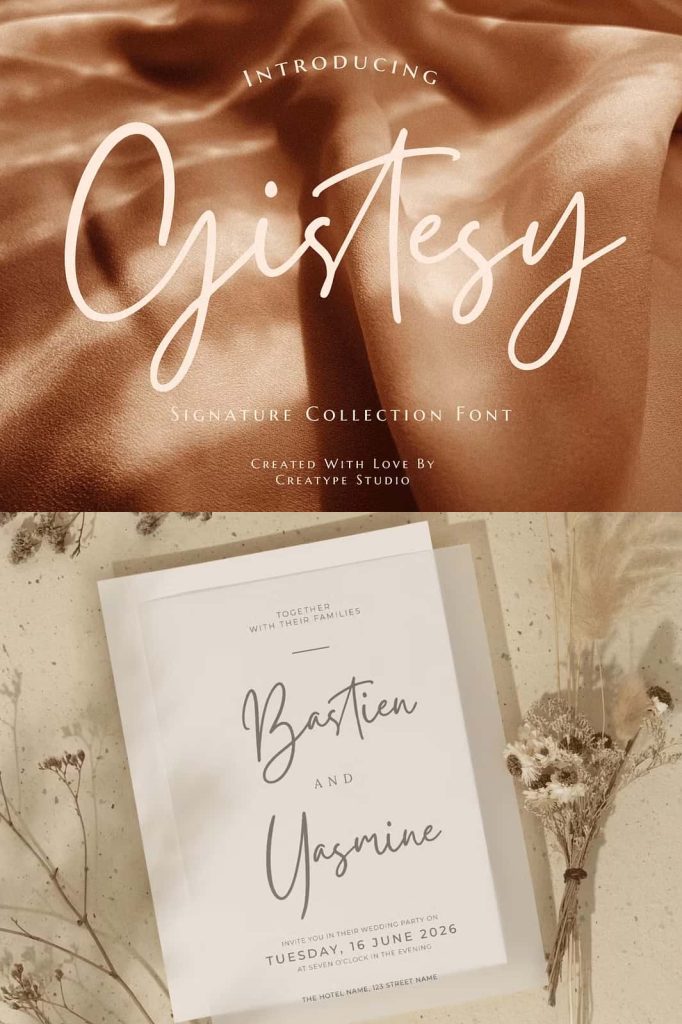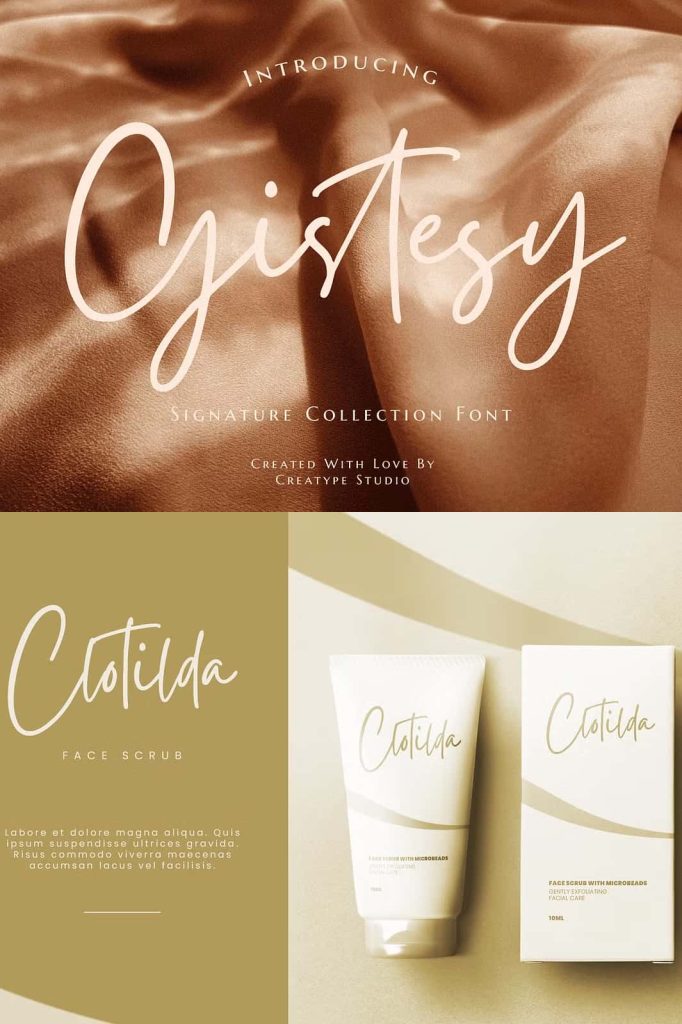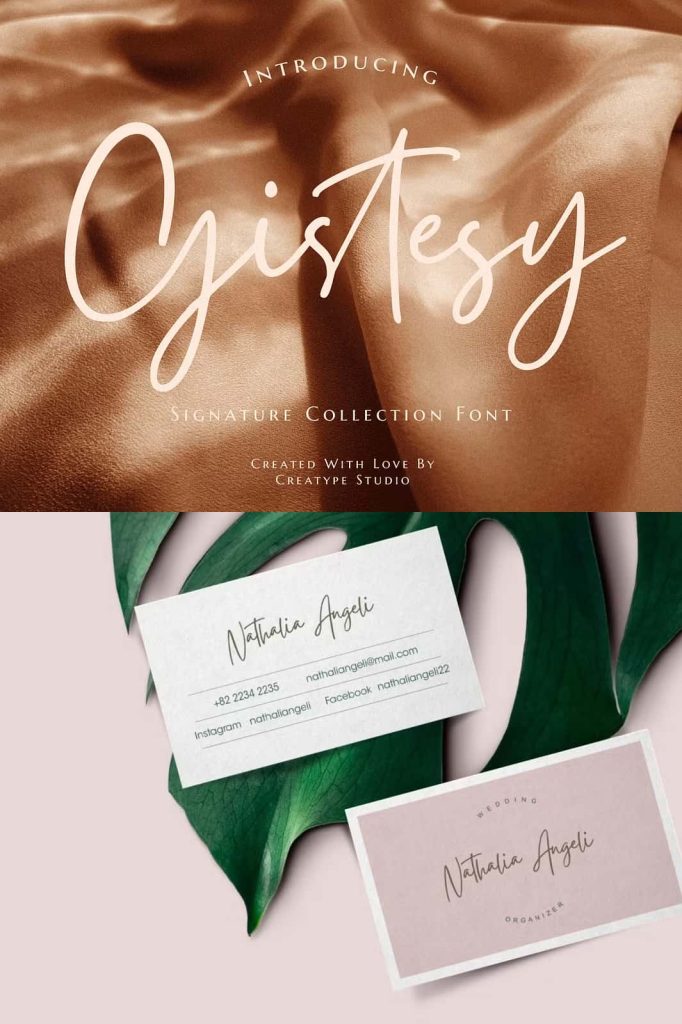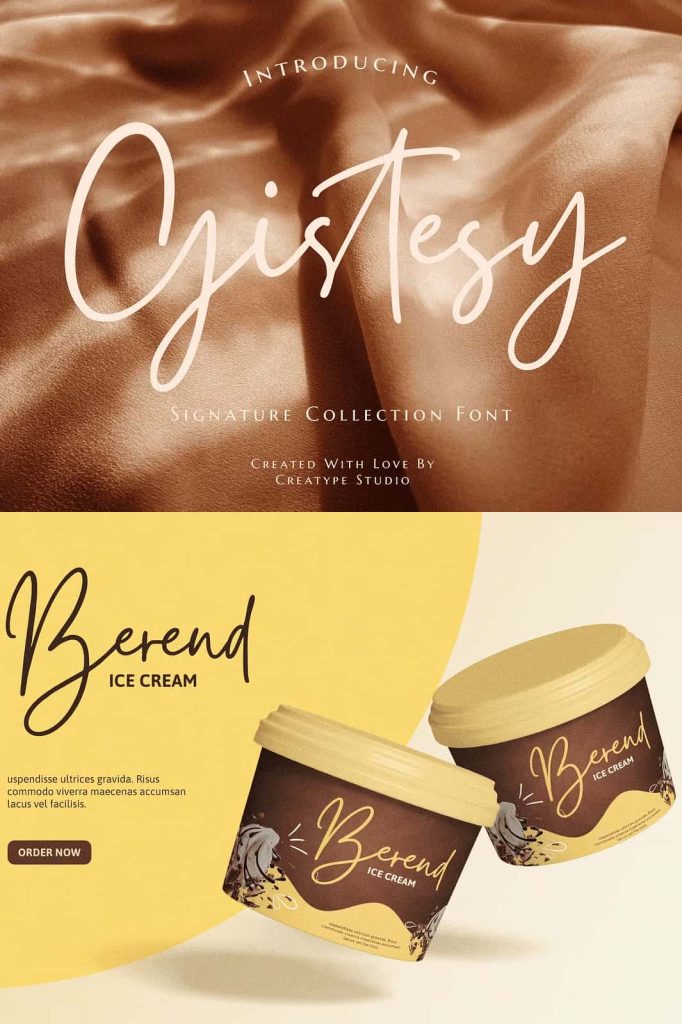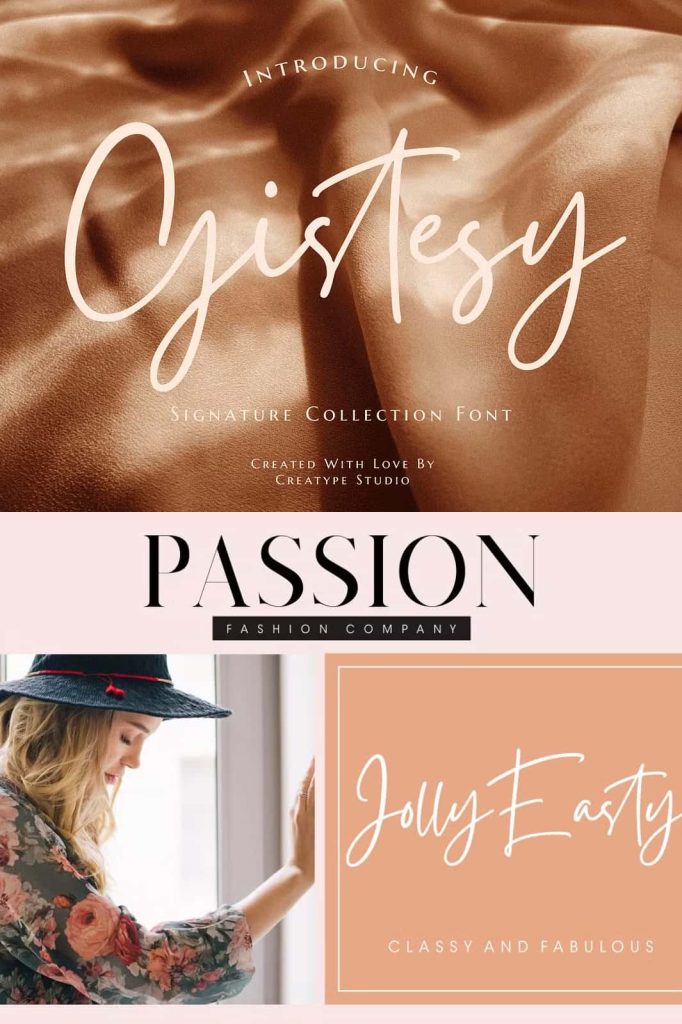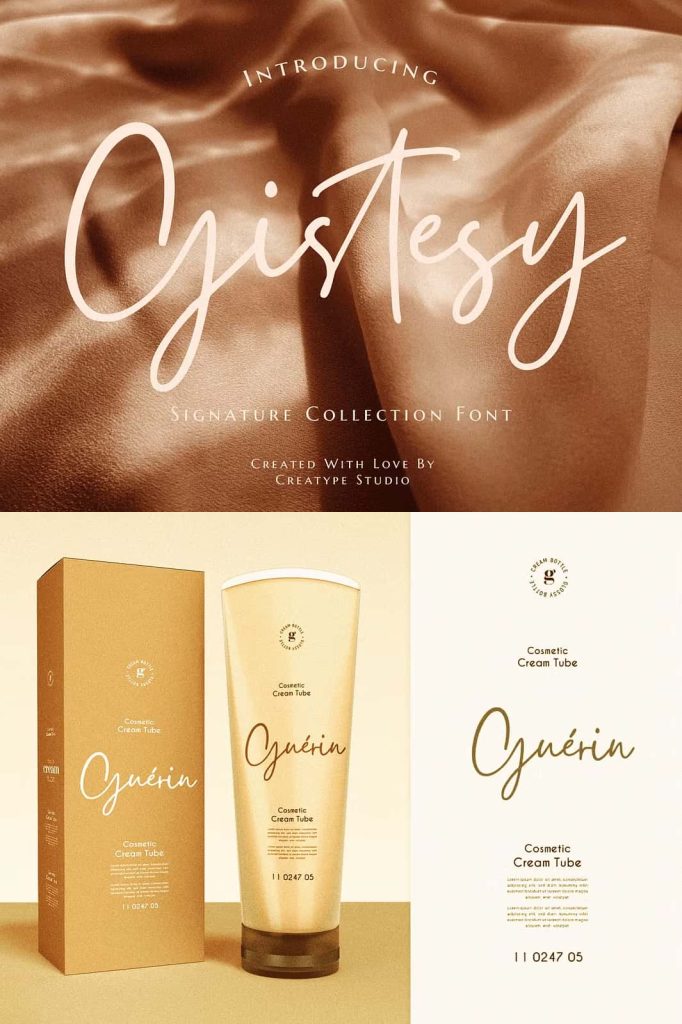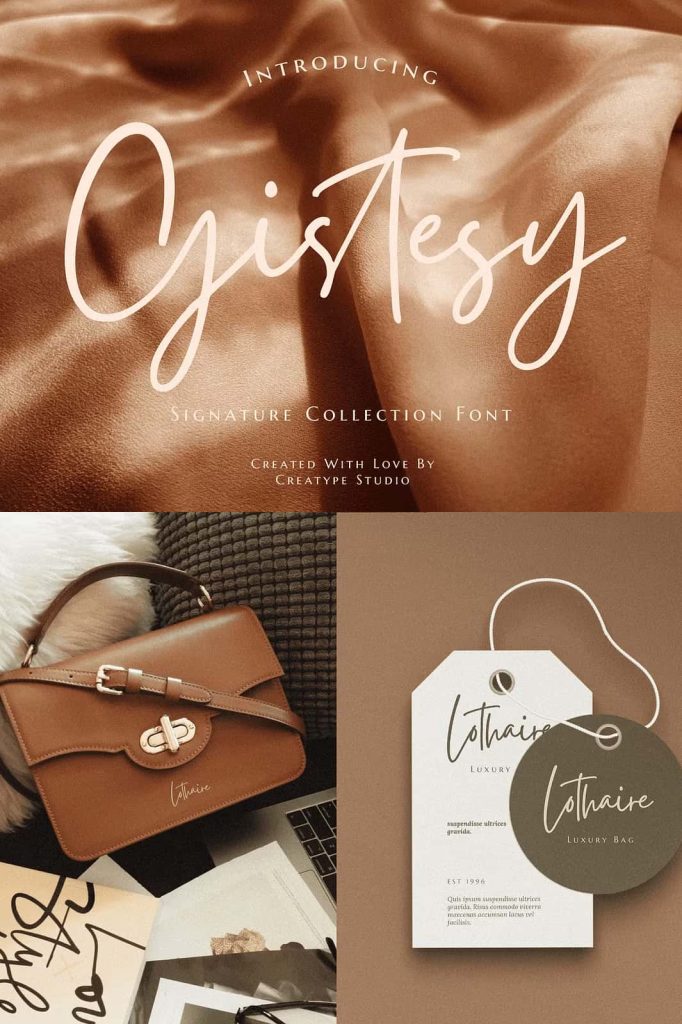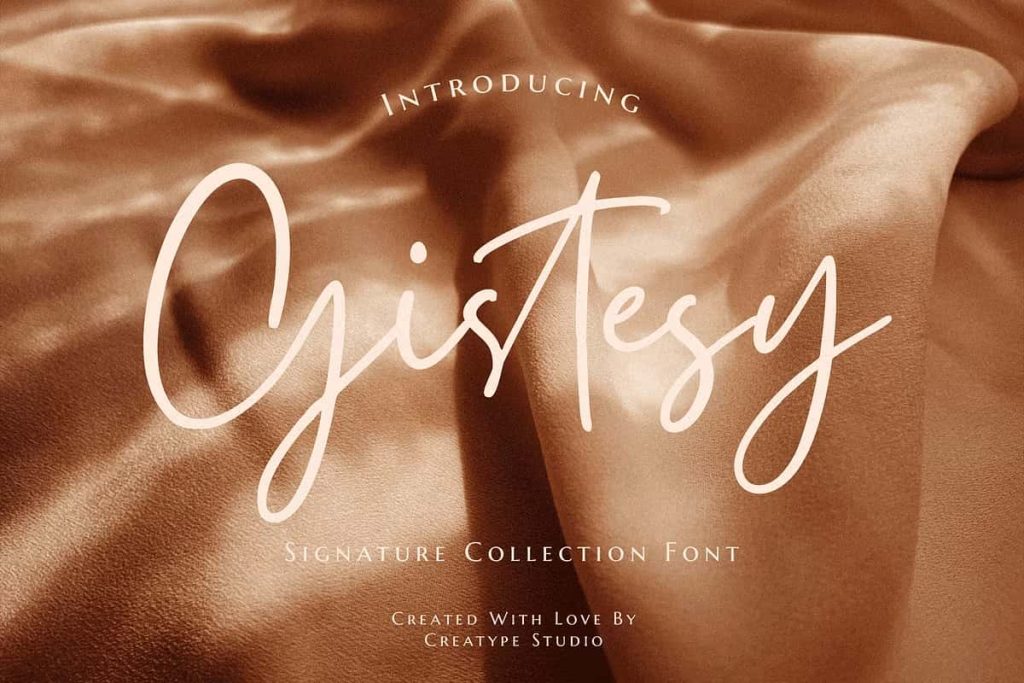
Gistesy Signature Business FontleastedJuly 2, 2025Fonts Gistesy is signature collection font with natural movement make looks elegant, classy and beauty for your latest project. Download